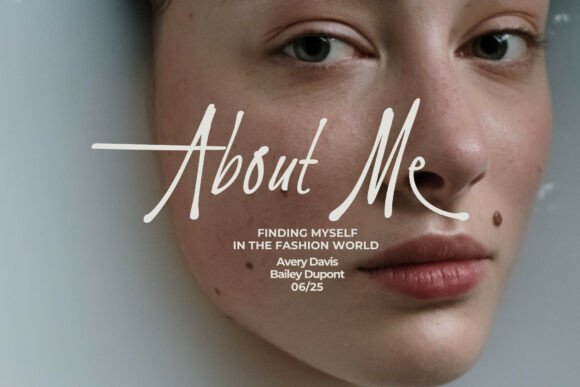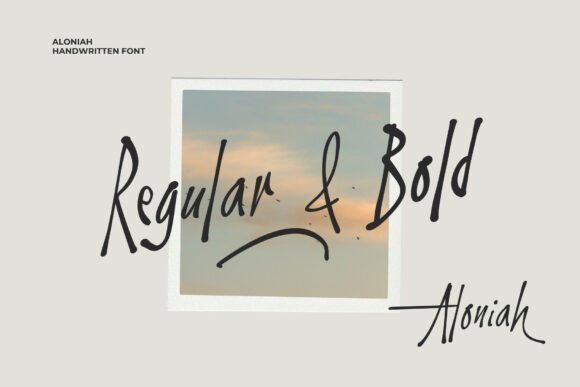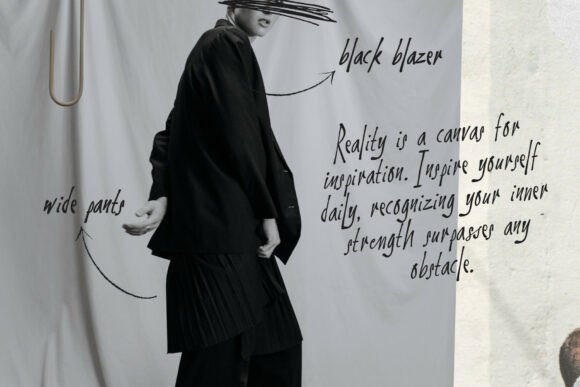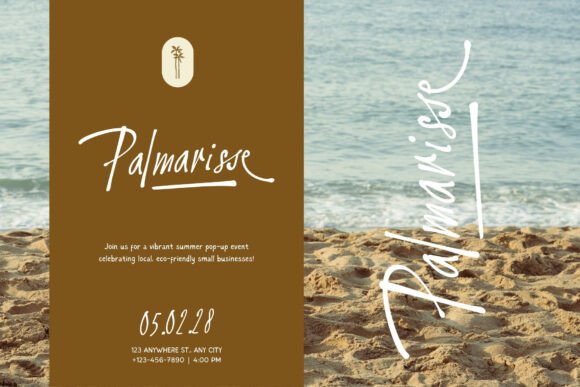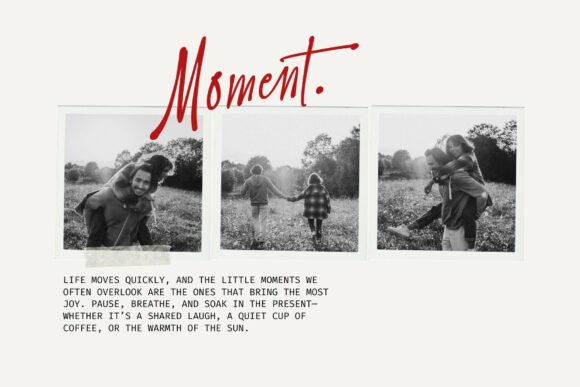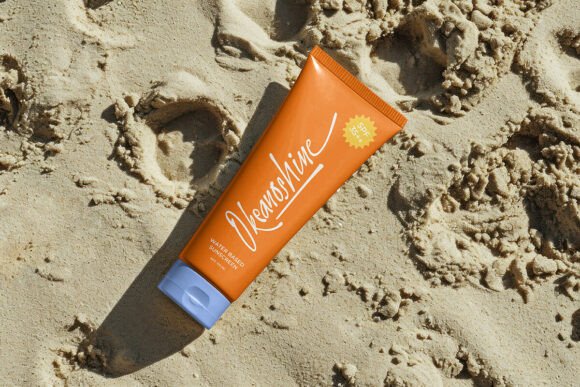
Introducing Aloniah Font: Elevate Your Designs with Elegant Handwritten Style
In the world of typography, a well-crafted font can make all the difference in bringing a design to life. For designers and crafters seeking to add a touch of elegance and sophistication to their work, Aloniah Font is an exceptional choice. This beautiful handwritten font, created by Get Studio, seamlessly blends refined penmanship with expressive, natural strokes, making it perfect for a wide range of creative projects.
The Characteristics of Aloniah Font
Aloniah Font is distinguished by its smooth monoline curves and dynamic flow, which give it a casual yet refined appearance. The font is available in two styles — Regular and Bold — allowing designers to choose the perfect weight for their project. Each character in Aloniah is meticulously crafted with attention to detail, offering a fluid and authentic writing feel that is sure to captivate audiences.
Perfect for Personal and Creative Projects
Aloniah Font is ideal for projects that require a personal touch, such as:
- Branding: Establish your brand’s identity with a unique and memorable font that exudes elegance and sophistication.
- Wedding Invitations: Add a touch of romance and whimsy to your wedding invitations and stationery.
- Aesthetic Quotes: Create visually stunning quotes and social media graphics that inspire and engage your audience.
- Social Media Content: Elevate your social media presence with beautiful, hand-crafted typography that sets you apart.
Advanced Features for Creative Freedom
Aloniah Font offers a range of advanced features that provide flexibility and style variety for creative designs. These features include:
- Swashes: Add a decorative touch to your text with elegant swashes that enhance the overall aesthetic.
- Alternates: Experiment with different character variations to create unique and customized designs.
- Ligatures: Combine characters in a way that creates a natural, handwritten flow.
Why Choose Aloniah Font?
For designers and crafters seeking to add a feminine, artistic, and elegant flair to their work, Aloniah Font is an exceptional choice. Here are just a few reasons why:
- Unique and Memorable: Aloniah Font is a distinctive and eye-catching font that will set your designs apart.
- Versatile: Suitable for a wide range of creative projects, from branding and advertising to wedding invitations and social media content.
- Elegant and Refined: Aloniah Font exudes sophistication and elegance, making it perfect for high-end designs and luxury brands.
In conclusion, Aloniah Font is a beautiful handwritten font that offers a unique blend of elegance, sophistication, and creativity. With its smooth monoline curves, dynamic flow, and advanced features, this font is perfect for designers and crafters seeking to add a personal touch to their work. Whether you’re creating branding materials, wedding invitations, or social media content, Aloniah Font is an exceptional choice that is sure to elevate your designs and leave a lasting impression.